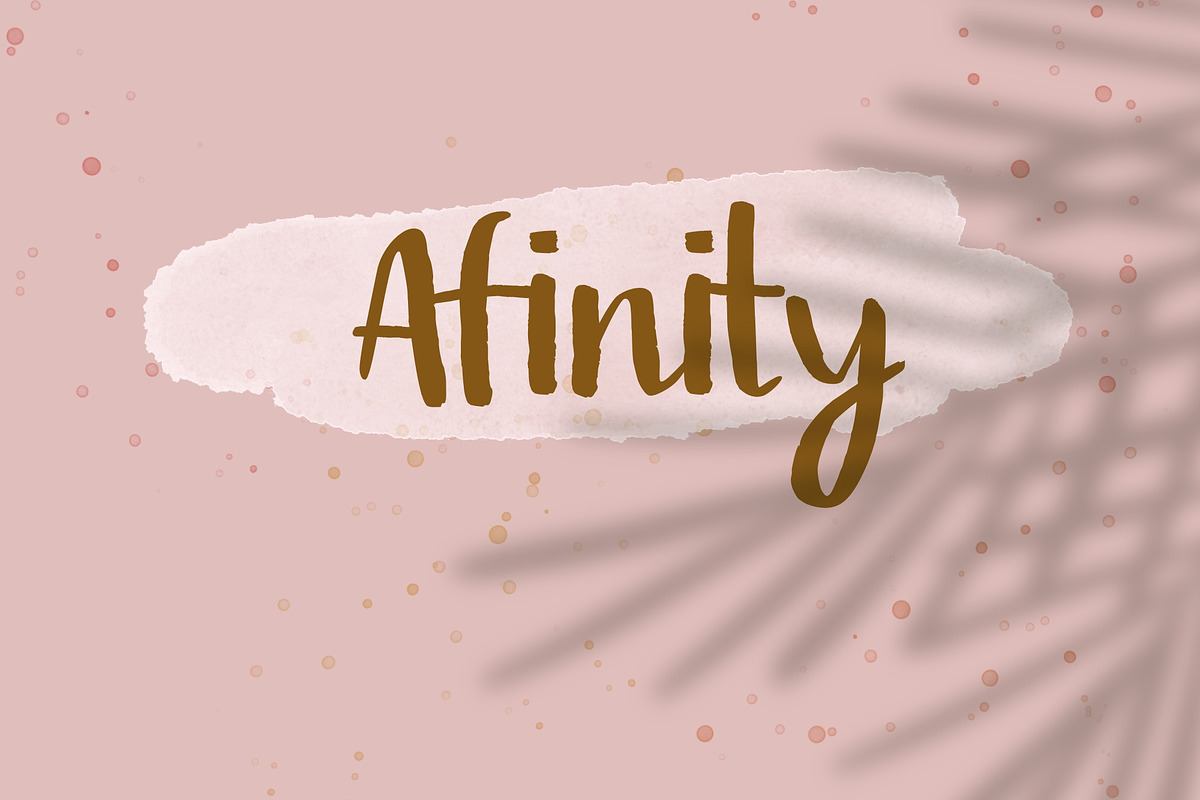
The Afinity Font Free Download is a modern and sleek typeface that adds a touch of elegance to any design. Ideal for creating stylish logos, invitations, and web graphics, this font is versatile and perfect for both personal and commercial use. Please note that for commercial purposes, a license must be purchased. You can download it for free for testing purposes.
With its clean lines and contemporary feel, the Afinity Font Free Download enhances the visual appeal of your projects. Whether you're working on a branding campaign, social media content, or print materials, this font brings sophistication and clarity to your designs.